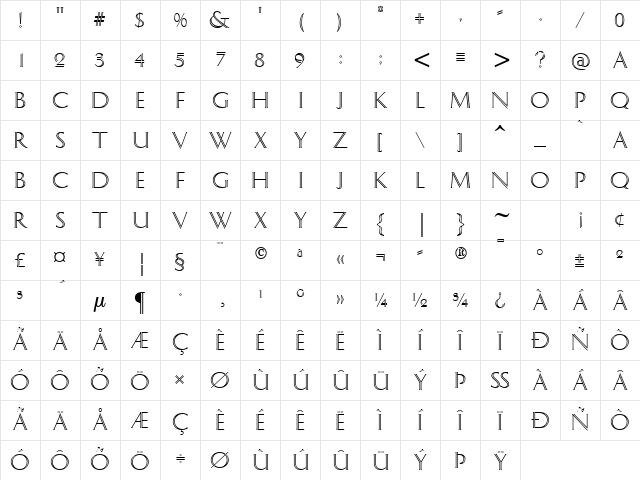
Dolphian Regular
Design Context for Dolphian
Dolphian is a composed and adaptable typeface that performs quietly and consistently across a wide range of design contexts.